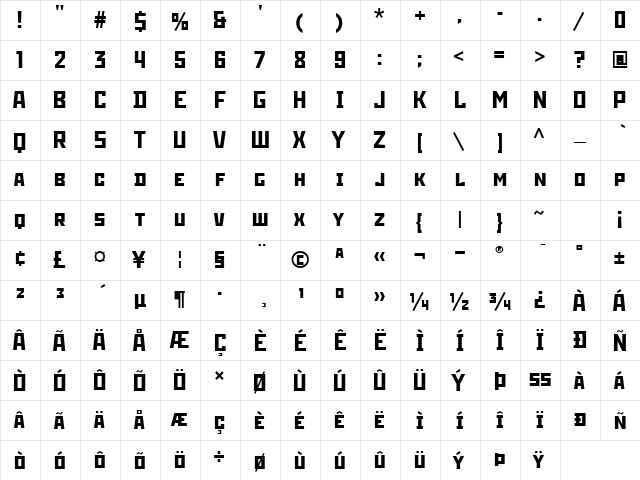
StenbergITC TT Regular
Design Context for StenbergITC TT Typeface
StenbergITC TT offers clean, dependable letterforms without strong stylistic allegiance, making it a practical choice for designers who need flexibility.